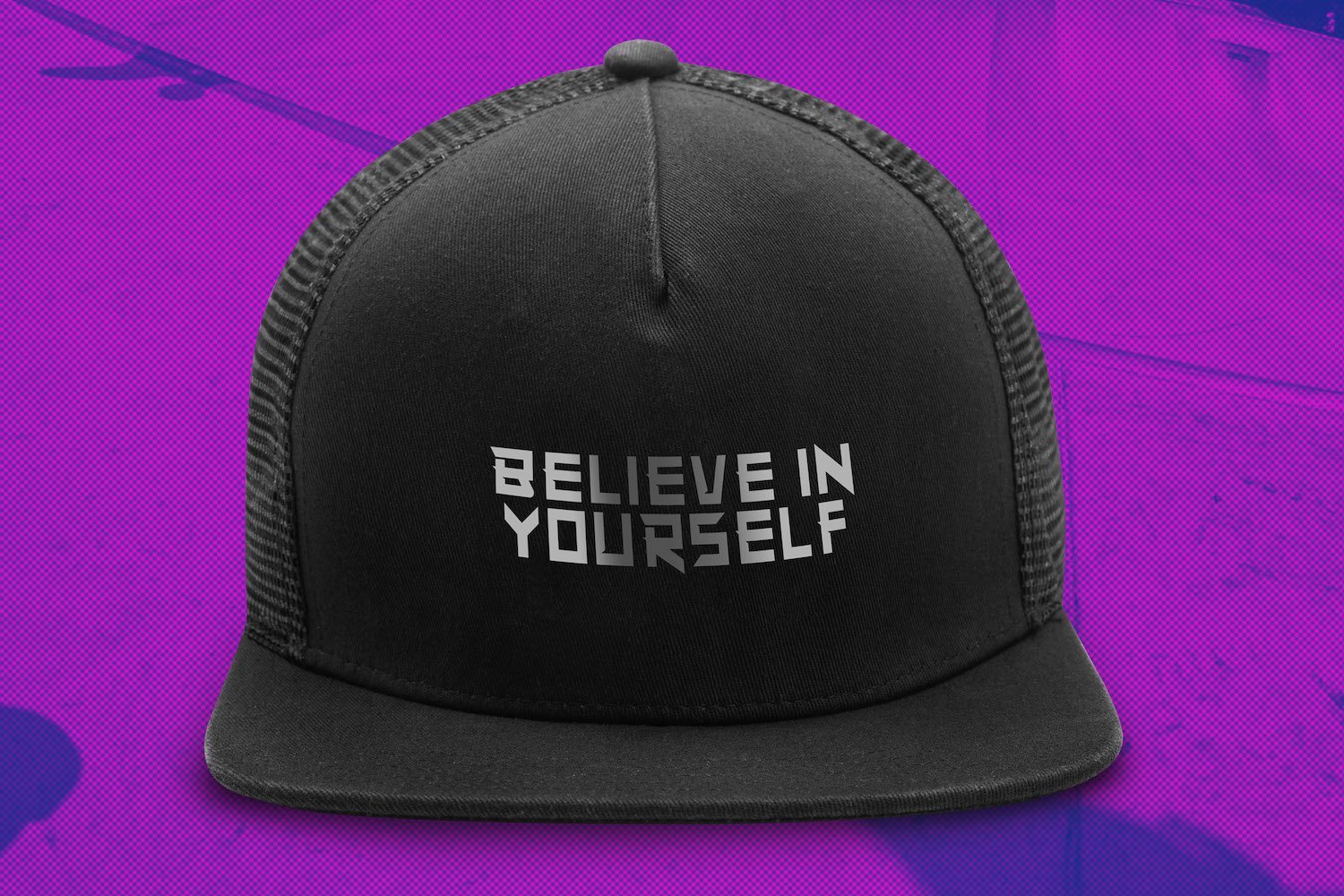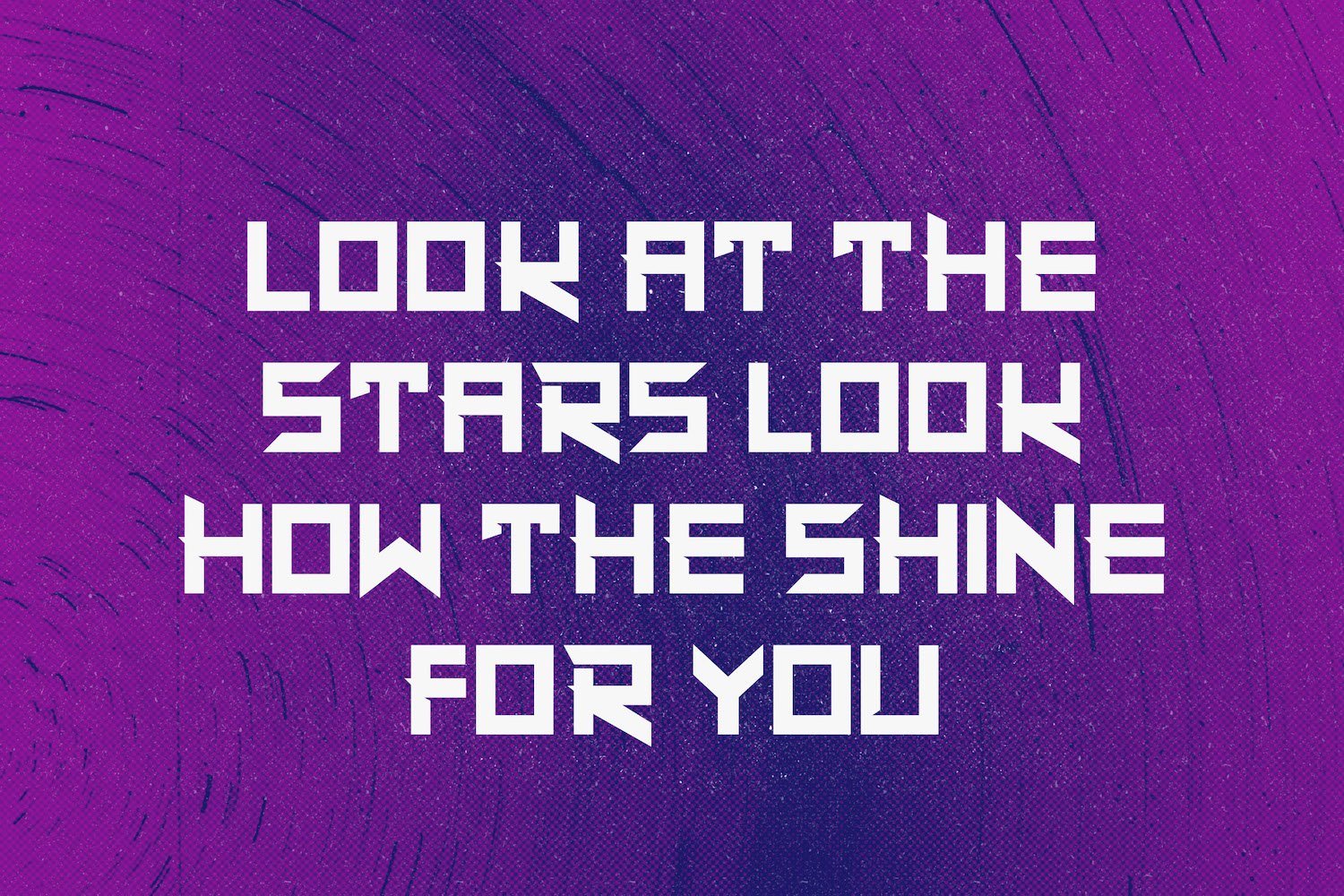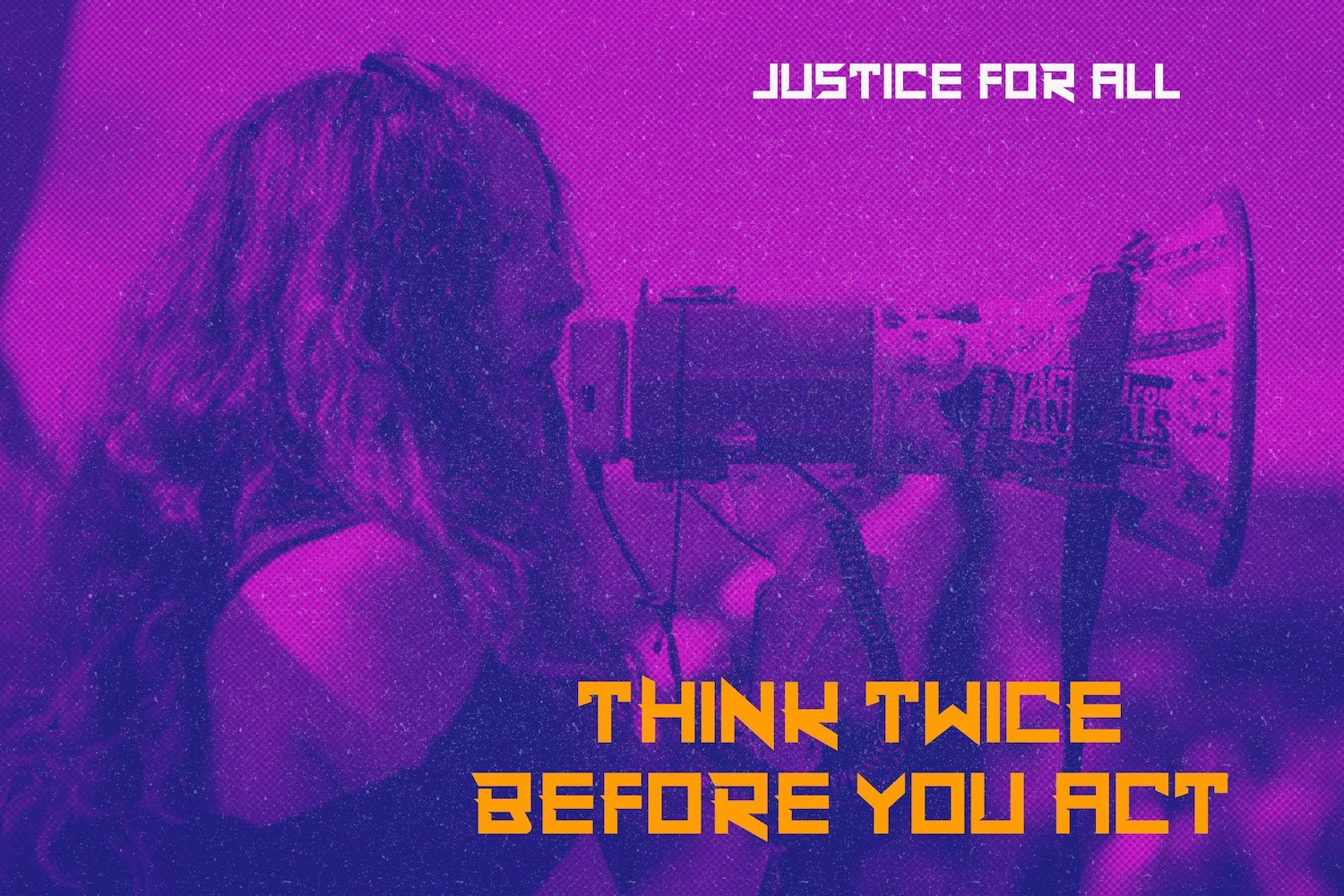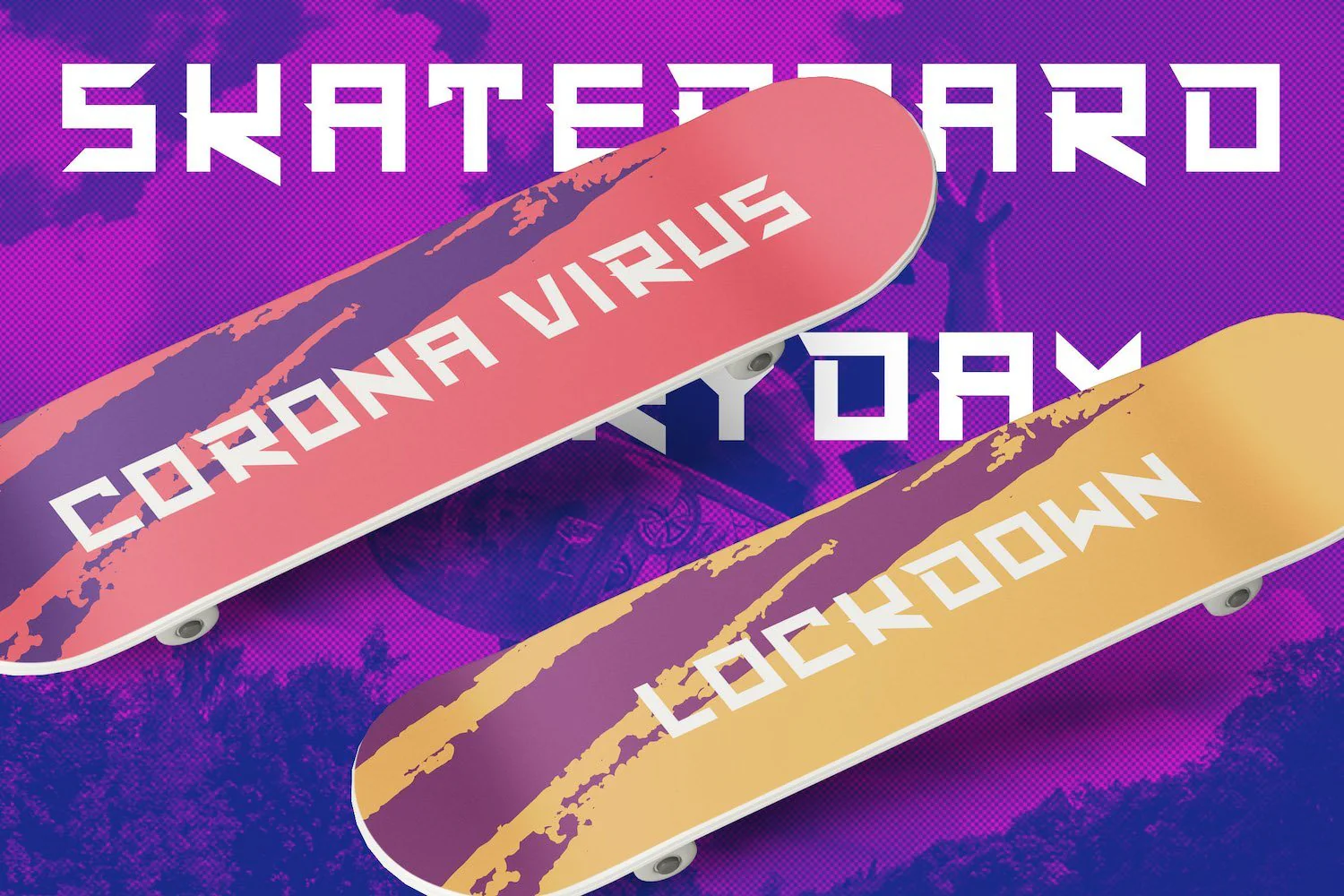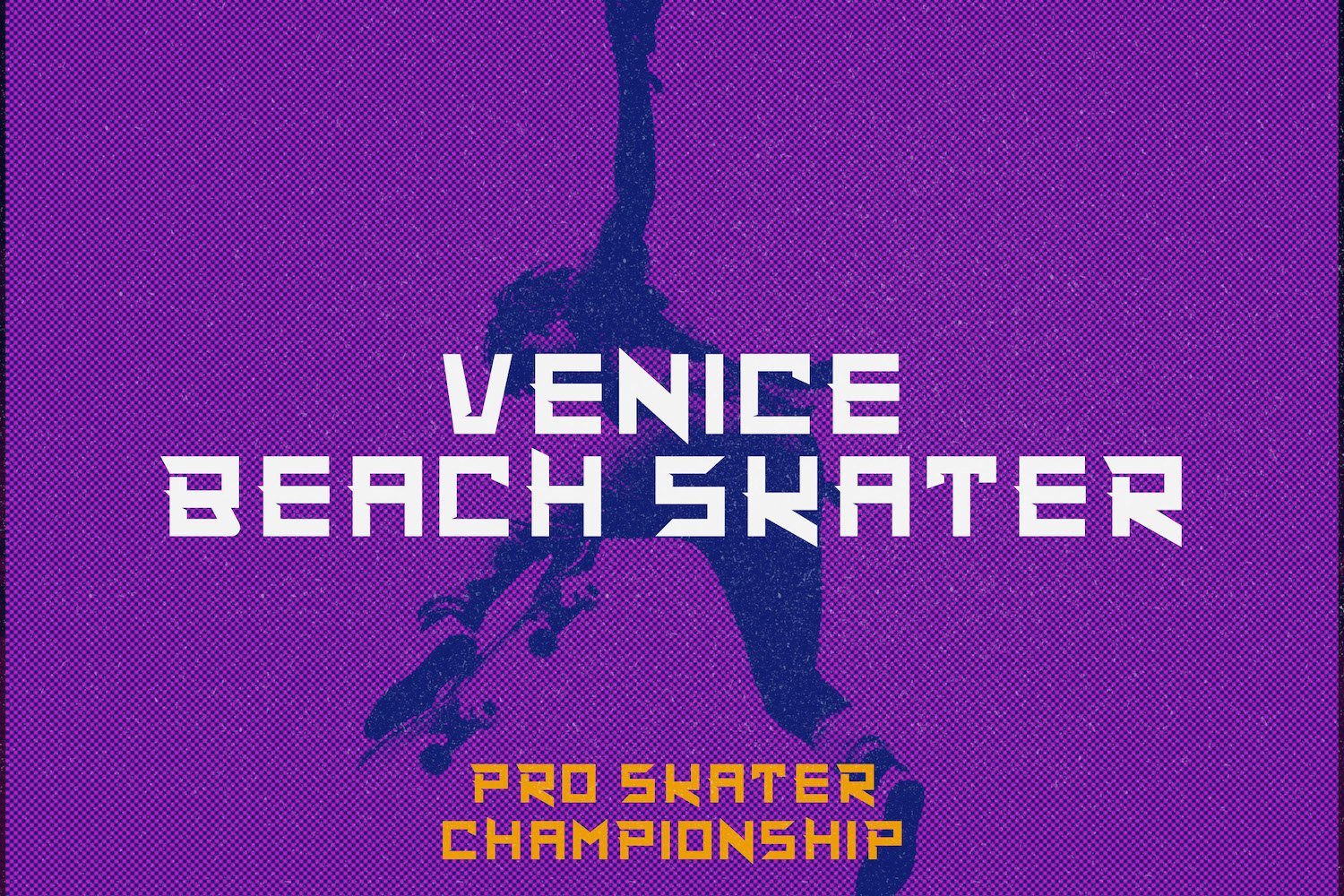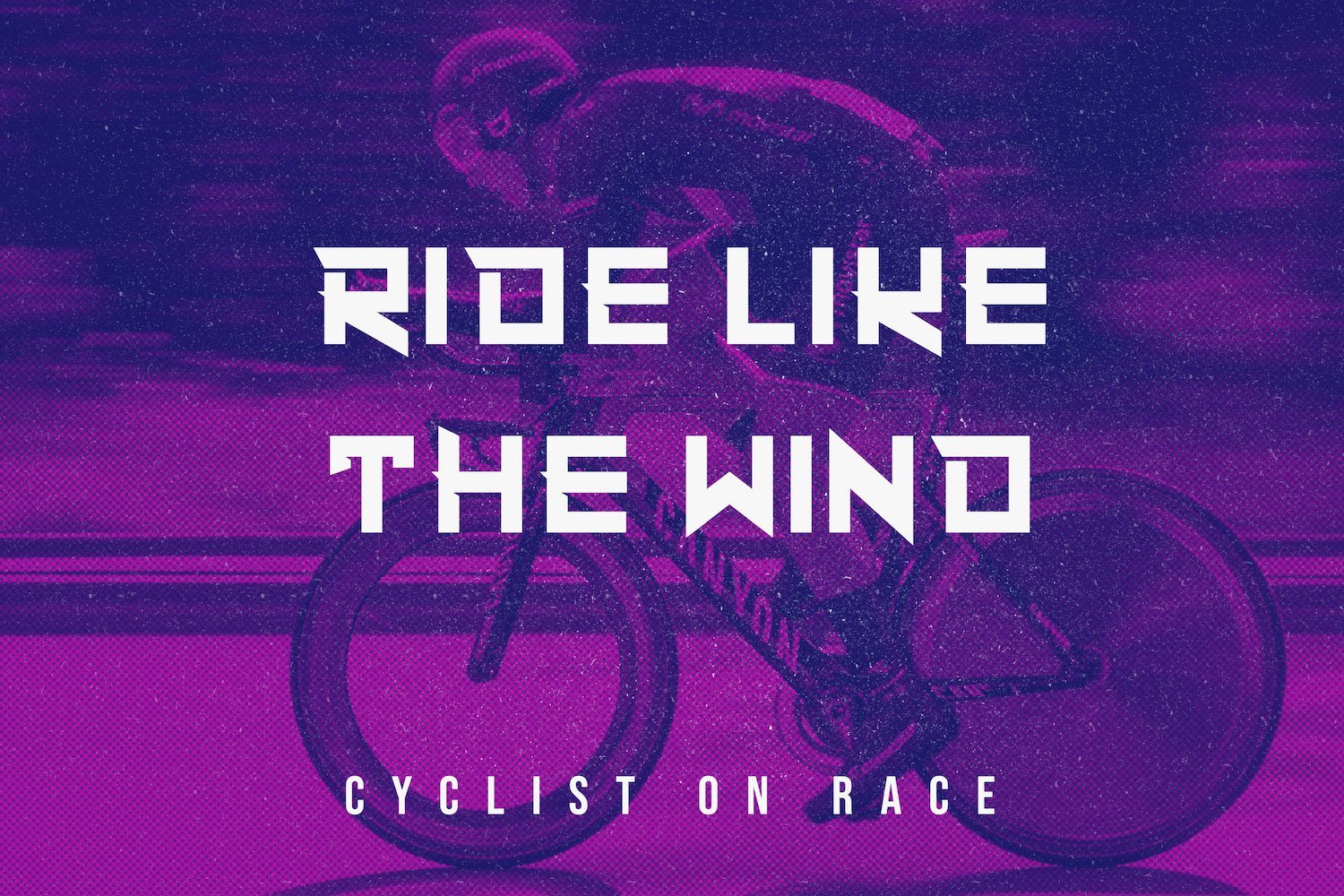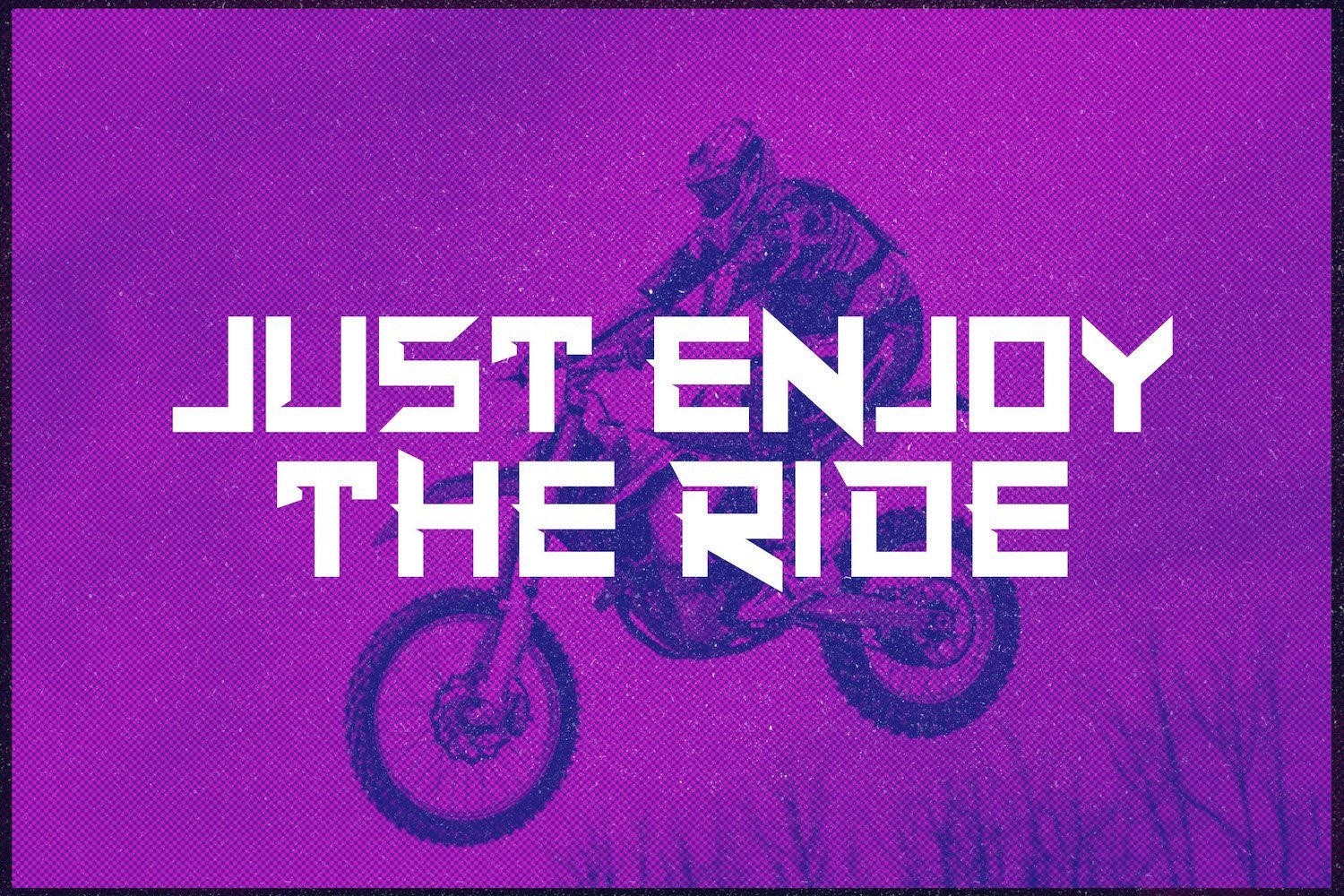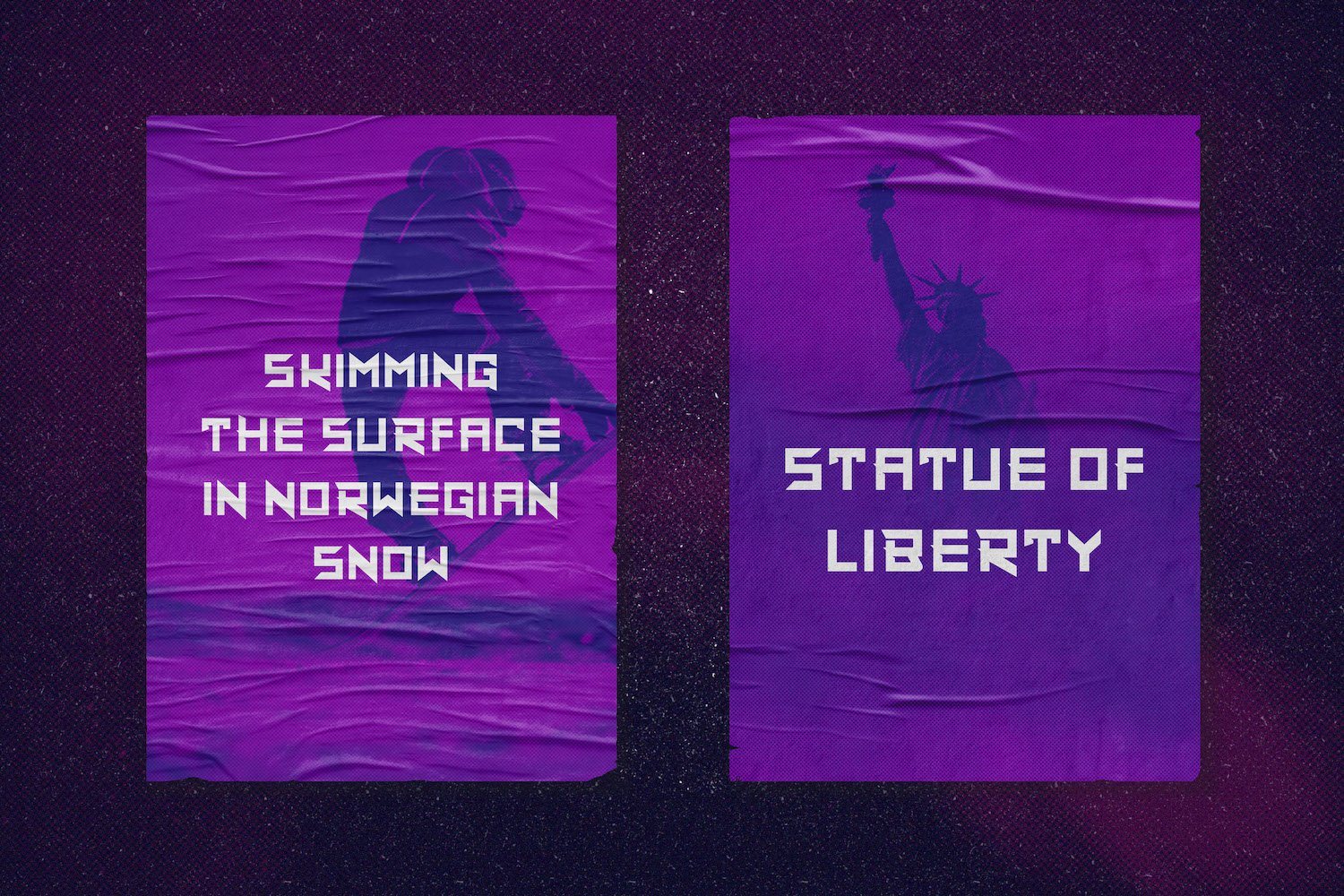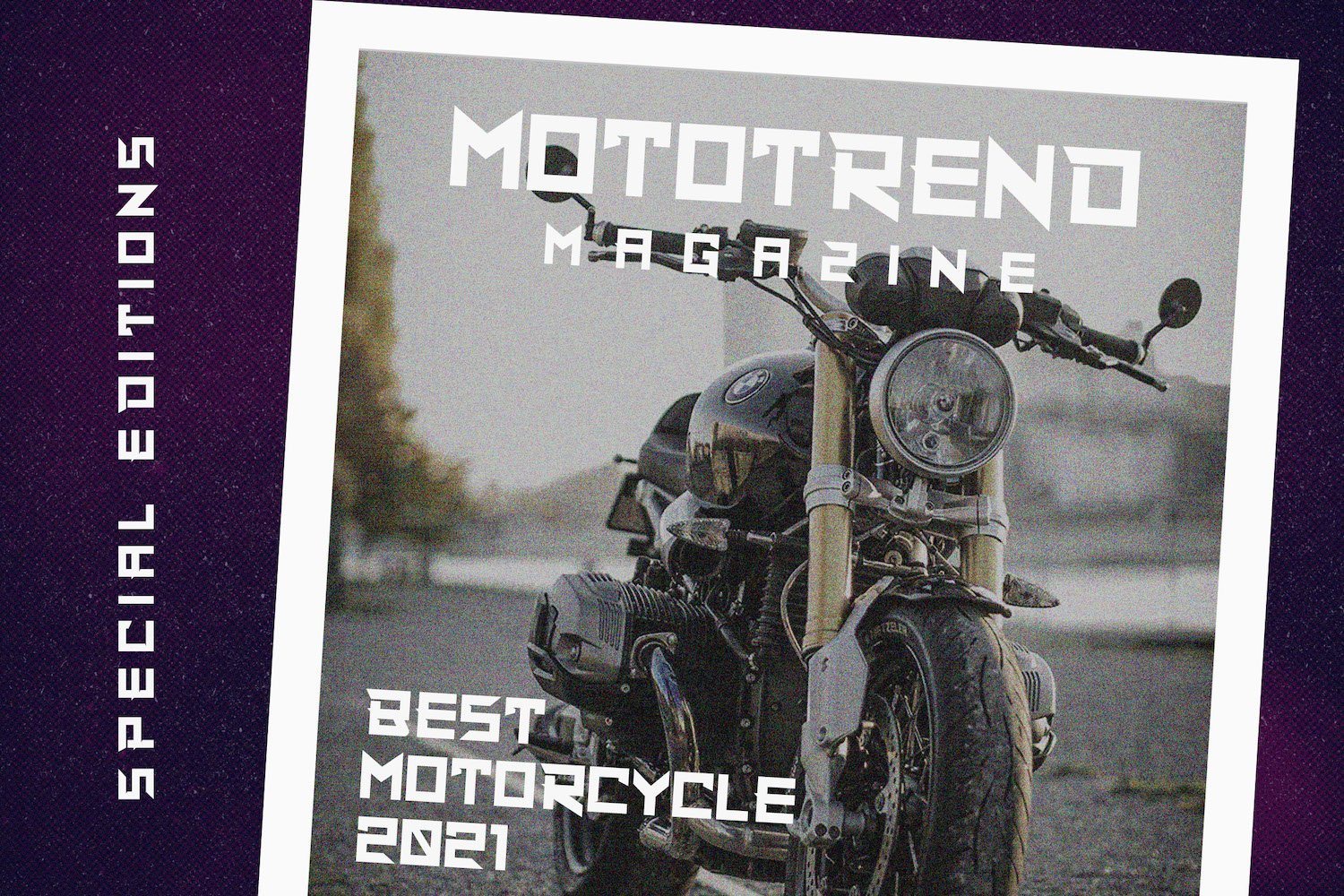
Super Maizen - Modern Futuristic Font
Introducing Super Maizen - Modern Futuristic Font
Super Maizen is a modern futuristic font with a bold feel. It will add a contemporary update to any design project. On top of everything, it has a techno feel to it, making it ideal for titles, subtitles and UI.
Introducing Super Maizen - Modern Futuristic Font
Super Maizen is a modern futuristic font with a bold feel. It will add a contemporary update to any design project. On top of everything, it has a techno feel to it, making it ideal for titles, subtitles and UI.